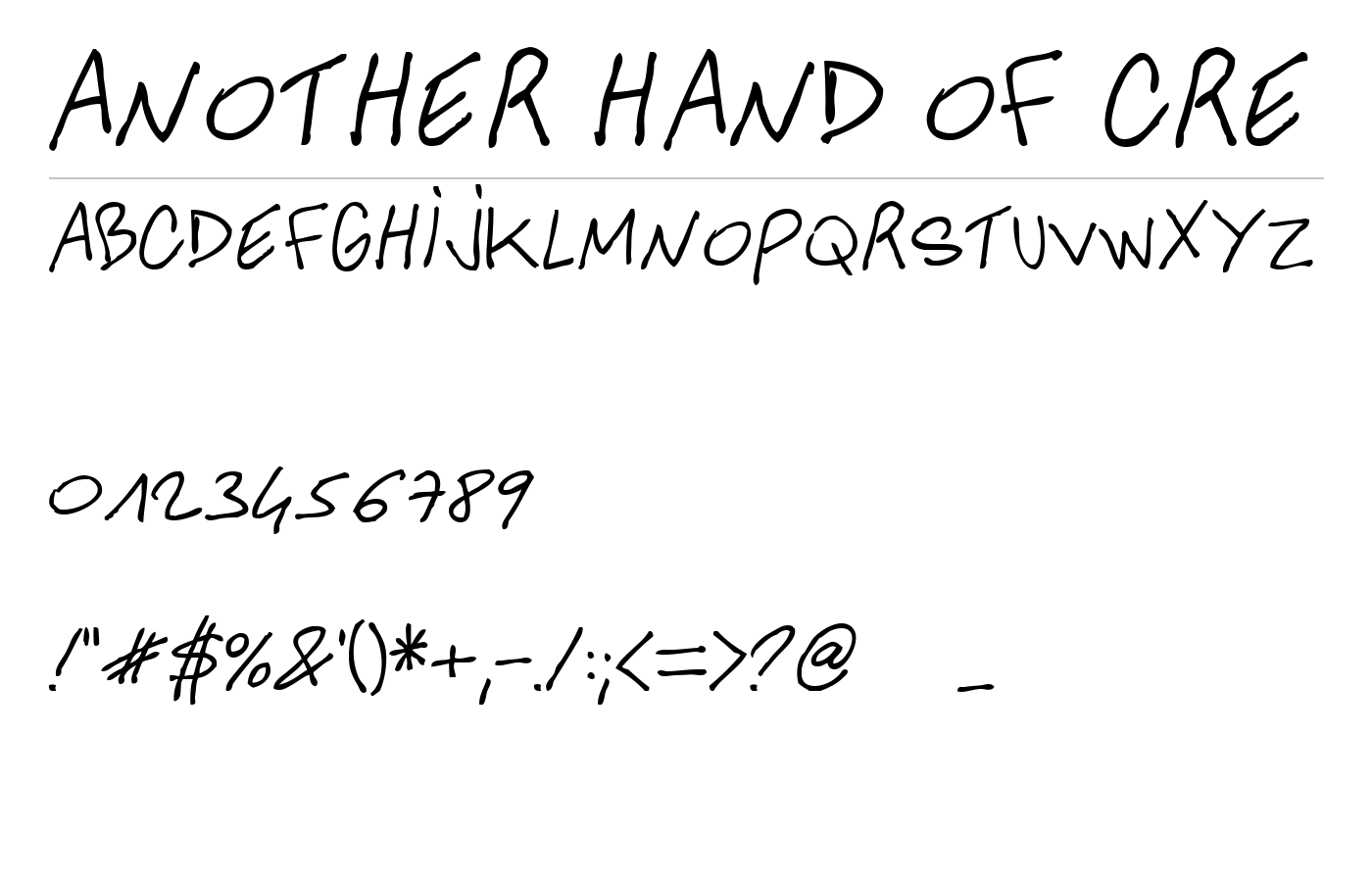
Another Hand of Cre is a casual, handwritten sans serif font that feels personal and approachable. Its irregular strokes and lively letterforms give it a playful, informal personality ideal for creative projects, personal branding, and youth-focused designs where a friendly, authentic touch is desired. This font works well in headlines, invitations, and social media graphics, adding a dynamic and spontaneous vibe without sacrificing readability.
ANOTHER HAND OF CRE Font